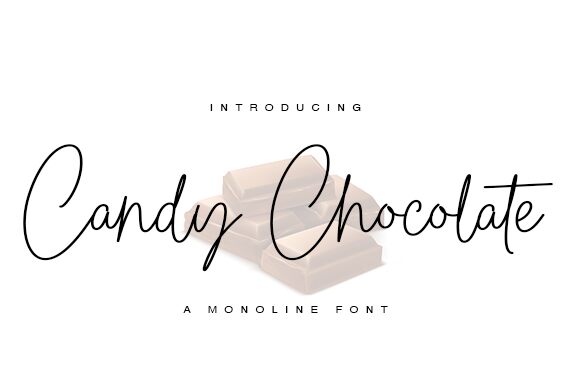
Candy Chocolate
Candy Chocolate, a creation of Wahyu Studio, is a font that captures the essence of personal touch in its handwritten style. With an extra-light weight, it exudes a sense of delicate elegance that's as enticing as its namesake. The fluidity of its characters suggests a casual yet sophisticated charm, perfect for designs seeking to convey intimacy and flair.
This font's aesthetic appeal lies in its ability to marry simplicity with sophistication, making it an excellent choice for branding, wedding invitations, and boutique packaging. Its readability paired with a unique personality ensures that Candy Chocolate stands out in a sea of typefaces. Ideal for creatives looking to add a handcrafted feel to their projects, this font promises to infuse your work with an artisanal quality that is both modern and timeless.